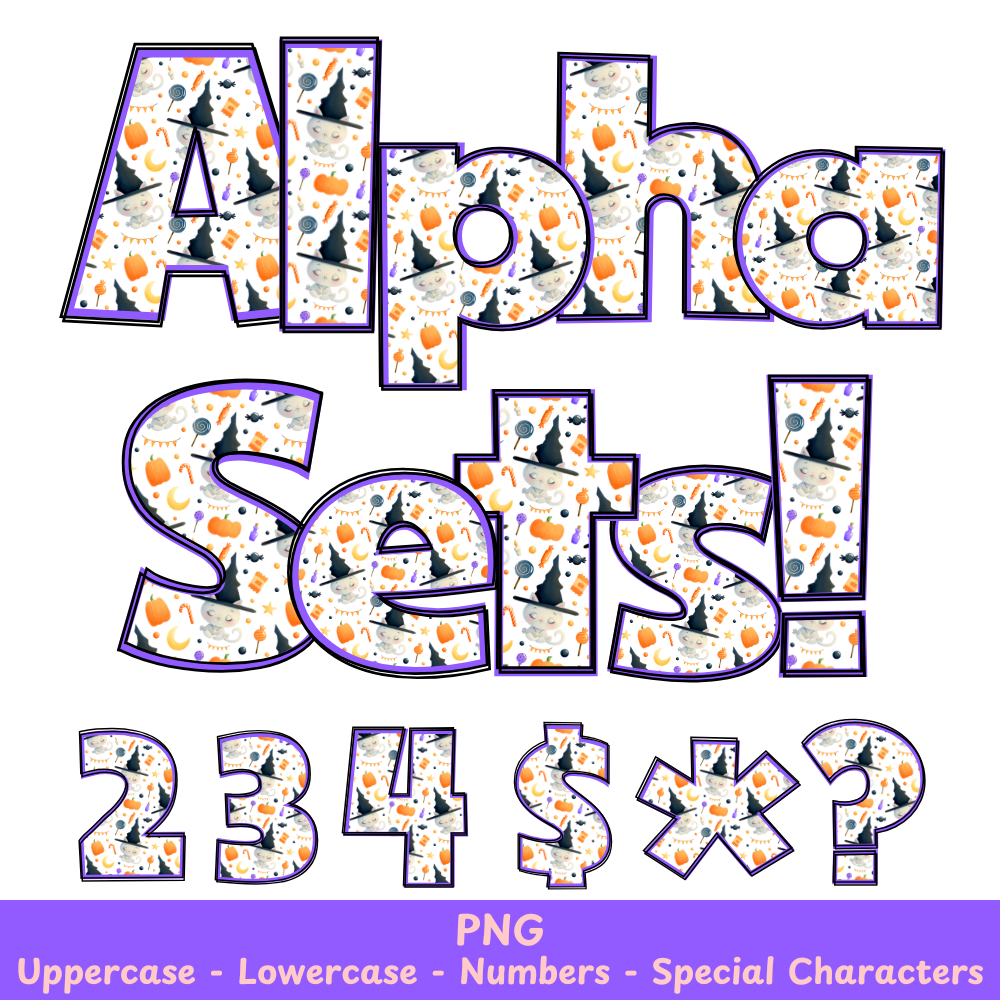
Cat Halloween PNG Font
Cat Halloween Alpha Set PNG Font Pack
Enhance your Halloween crafts with the Cat Halloween PNG Font. Perfect for sublimation and other projects, this font adds a spooky touch to your designs. Professional and unique, this font is sure to impress.